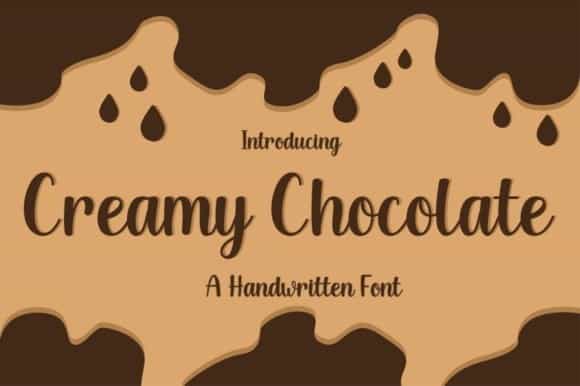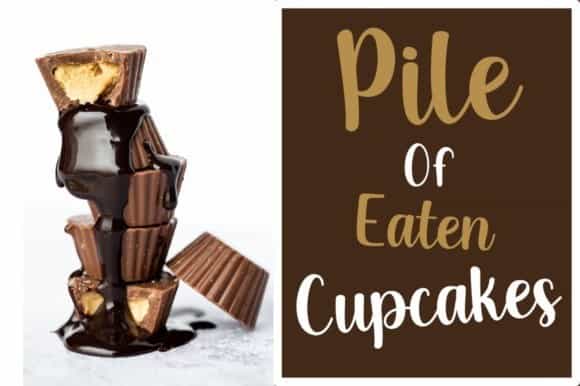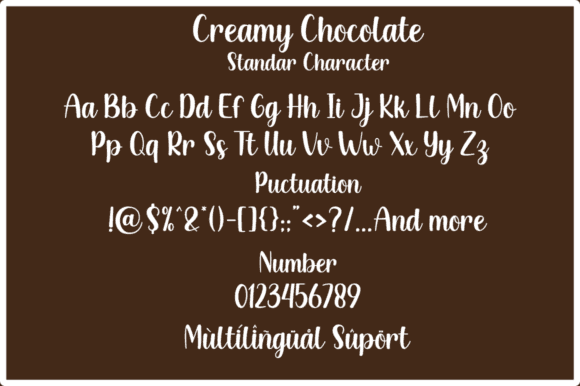
Discover Creamy Chocolate Script Font, part of the Calligraphy Handwritten collection—a versatile and unique font perfect for adding a personal touch to your projects. Download it for free and enjoy crafting designs with style, from invitations to social media posts. This font is available exclusively for personal use, giving you the freedom to create without limits. Unlock your creativity with Creamy Chocolate Script Font today!
Creamy Chocolate – a brand new handmade calligraphy font with a touch of freshness. Perfect for cards, logos, business cards, quotations, posters, and most of all, greeting cards! These fonts are just right for wedding postcards. Or you can make the perfect and inimitable design of your logo, blog, stationery, marketing, magazines and so on.